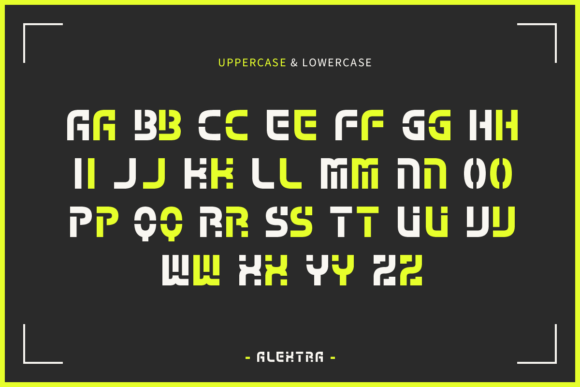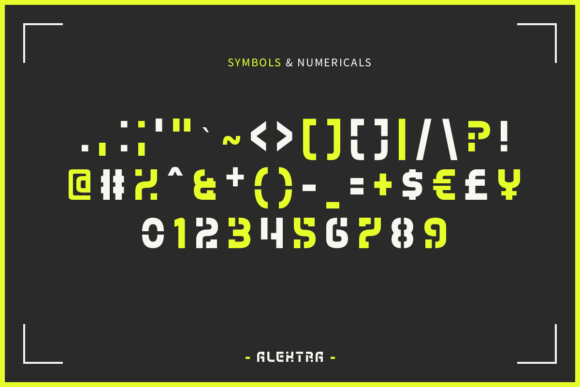
Introducing Alextra Font: The Futuristic Stencil Font for Modern Design
In the realm of typography, few fonts have managed to capture the essence of modernity and futurism as effectively as Alextra. This bold and geometric stencil-style sans serif font is designed to propel your brand, project, or message into the future, exuding a cutting-edge aesthetic that’s perfect for tech branding, sci-fi posters, esports logos, and digital interfaces.
A Futuristic Design with Precision and Innovation
Alextra’s design is rooted in precision and innovation. Each letterform is meticulously crafted with clean, modular geometry, striking a balance between readability and forward-thinking design. The font’s sharp angles and distinctive breaks create a dynamic rhythm that’s both visually engaging and easy to read. This unique blend of form and function makes Alextra an ideal choice for designers and crafters looking to make a statement.
Perfect for Modern Applications
Alextra’s sleek structure and commanding presence make it perfect for a wide range of modern applications. Whether you’re designing headlines, packaging, apparel, or digital interfaces, this font is sure to leave a lasting impression. Its industrial flair and futuristic design give it a uniquely modern edge that’s hard to ignore.
Designed for Versatility
One of Alextra’s greatest strengths is its versatility. This font is designed to perform exceptionally well across various mediums, from print to digital. Whether you’re creating a sci-fi poster, an esports logo, or a tech brand identity, Alextra’s bold and geometric design ensures that your message will be conveyed with clarity and impact.
Key Features of Alextra Font
• Bold and Geometric Design: Alextra’s stencil-style sans serif design is both modern and attention-grabbing.
• Clean and Modular Geometry: Each letterform is crafted with precision, ensuring excellent readability and a futuristic aesthetic.
• Dynamic Rhythm: The font’s sharp angles and distinctive breaks create a visually engaging rhythm.
• Sleek Structure: Alextra’s design makes it perfect for headlines, packaging, apparel, and digital interfaces.
• Versatility: This font performs exceptionally well across various mediums, from print to digital.
Who Designed Alextra?
Alextra was designed by Letterlogy, a team of skilled designers dedicated to creating high-quality, innovative typefaces. With Alextra, they’ve successfully crafted a font that’s both modern and functional, perfect for designers and crafters looking to elevate their projects.
Why Choose Alextra?
When it comes to selecting a font for your project, there are countless options available. However, Alextra stands out for several reasons:
• Uniquely Commanding Presence: Alextra’s fusion of stencil utility and futuristic design gives it a distinctive edge.
• Bold and Forward-Thinking: This font is perfect for designers and crafters looking to make a statement.
• Unmistakably Modern: Alextra’s design is undeniably modern, making it an excellent choice for projects that require a cutting-edge aesthetic.
Alextra font is a game-changer for designers and crafters looking to infuse their projects with a modern, futuristic aesthetic. Its bold and geometric design, precision-crafted letterforms, and versatile nature make it an excellent choice for a wide range of applications. Whether you’re working on a tech brand identity, sci-fi poster, or digital interface, Alextra is sure to deliver a commanding presence that’s both visually engaging and effective.